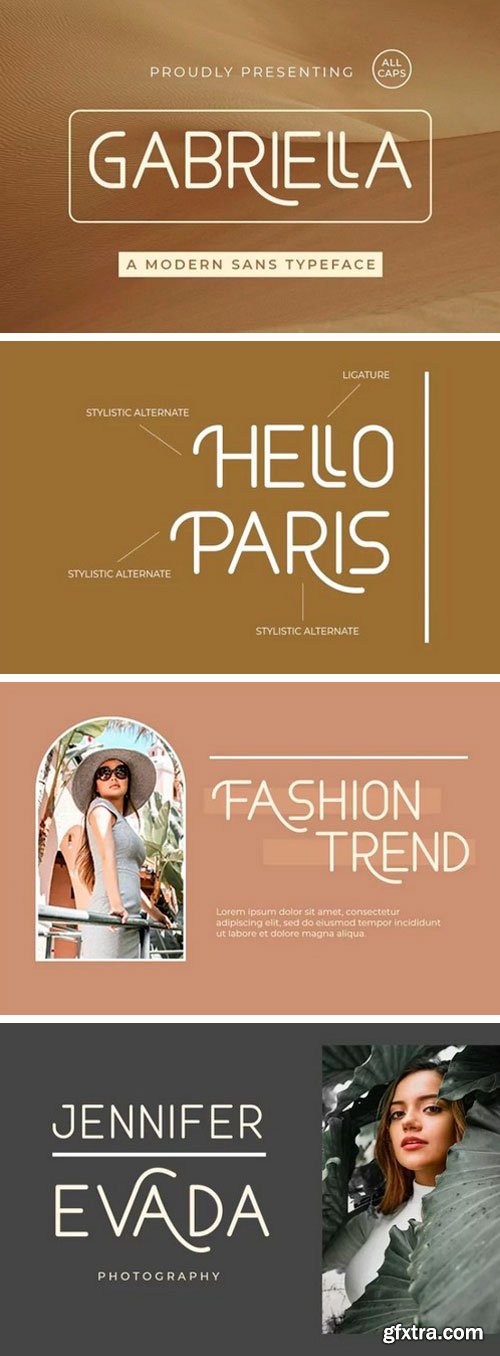
Gabriella Sans Serif Font
This is a minimalist modern elegant sans serif typeface created by Bluestype Studio with stylistic alternates. Its clean and minimalistic works wonderfully on its own for logos, headlines, posters, packaging and many more!
Black Anemone Brush Font
This font is a cool, rough brush font, quickly painted on paper, so it looks natural, organic. Very cool for logos, name tag, handwritten quotes, product packaging, merchandise, social media & greeting cards. It contains a full set of lower & uppercase letters, a large range of punctuation, numerals, and multilingual support.
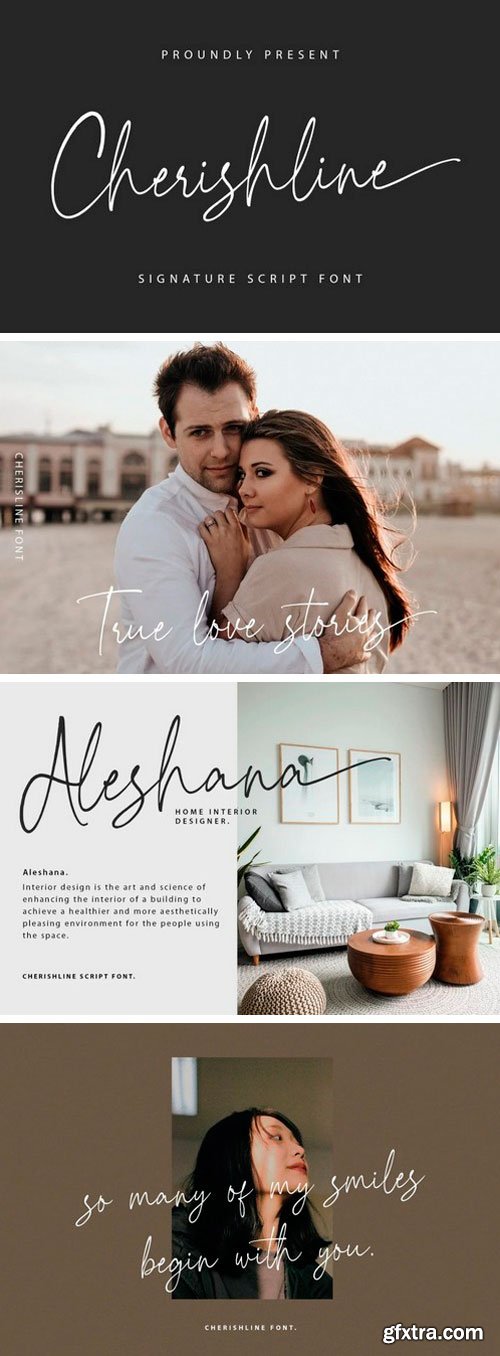
Cherishline Handwritten Font
It’s a beautiful organic handwritten font inspired by simplicity and people’s habit of writing in a simple but strong character. Fall for its ravishing style and use it to create gorgeous wedding invitations, beautiful stationary art, eye-catching social media posts, and much more! Cherishline Script is PUA encoded which means you can access all glyphs and swashes with ease!
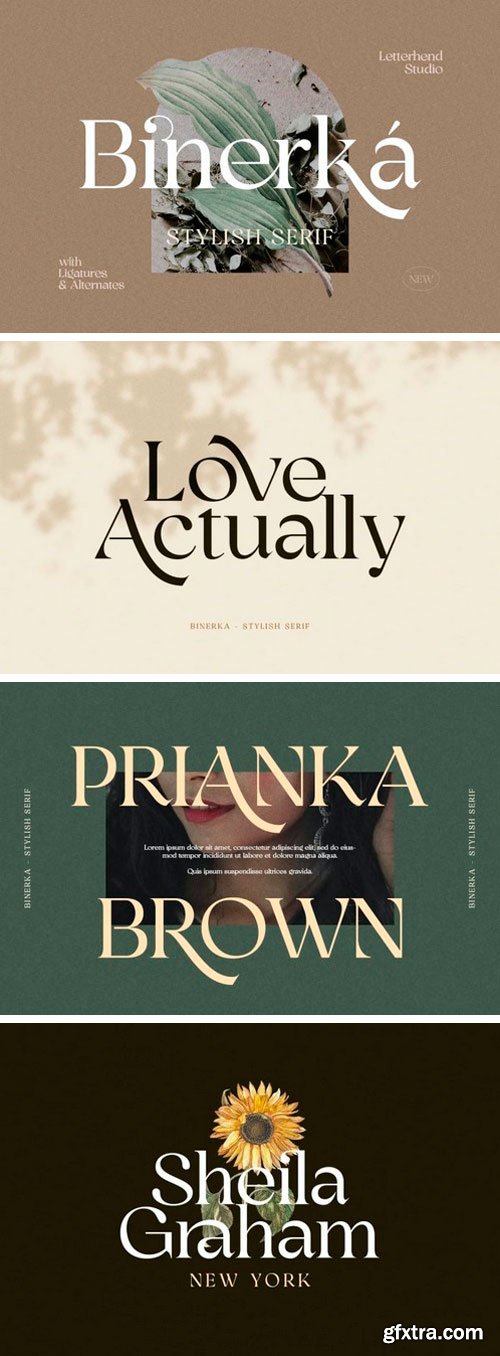
Bhinerka Serif Font
This is an ornate serif font from designer Letterhend Studio. This font is impressive and features uniquely shaped letters. This typeface has can be used for modern theme or vintage looks with ligatures & alternates. Very suitable for logo, headline, tittle, and the other various formal forms such as invitations, labels, logos, magazines, books, greeting / wedding cards, packaging, fashion, make up, stationery, novels, labels or any type of advertising purpose.
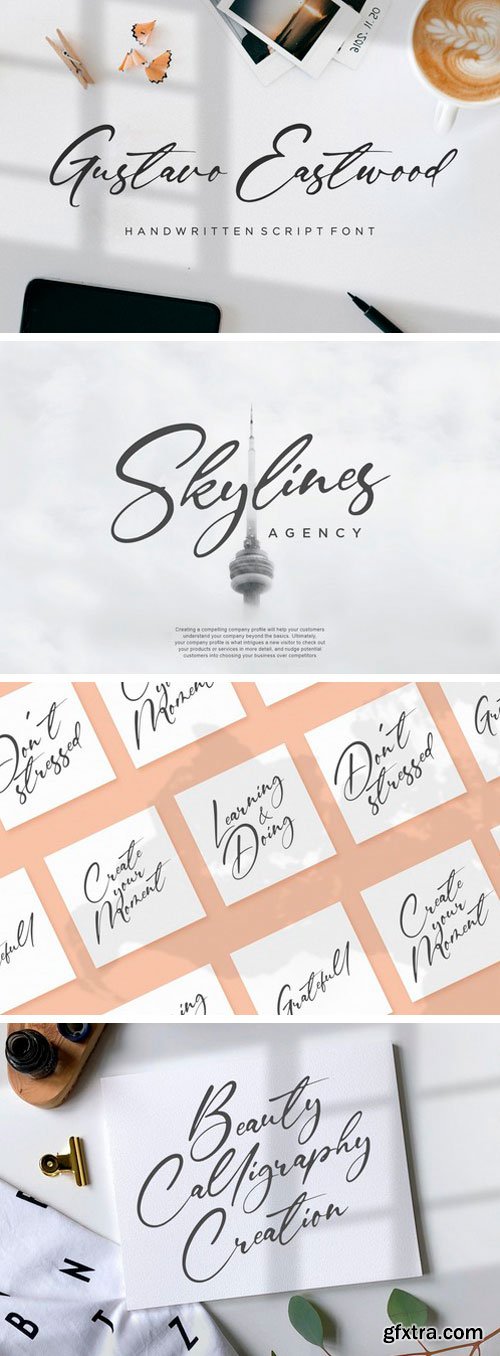
Gustavo Eastwood Script Font
Gustavo Eastwood is a Handwritten Script Font.
Gustavo Eastwood is a beautiful and refined script font. It has a classy, elegant and modern look that can be used for logos, branding, invitations, stationery, wedding designs, social media posts, and much more!
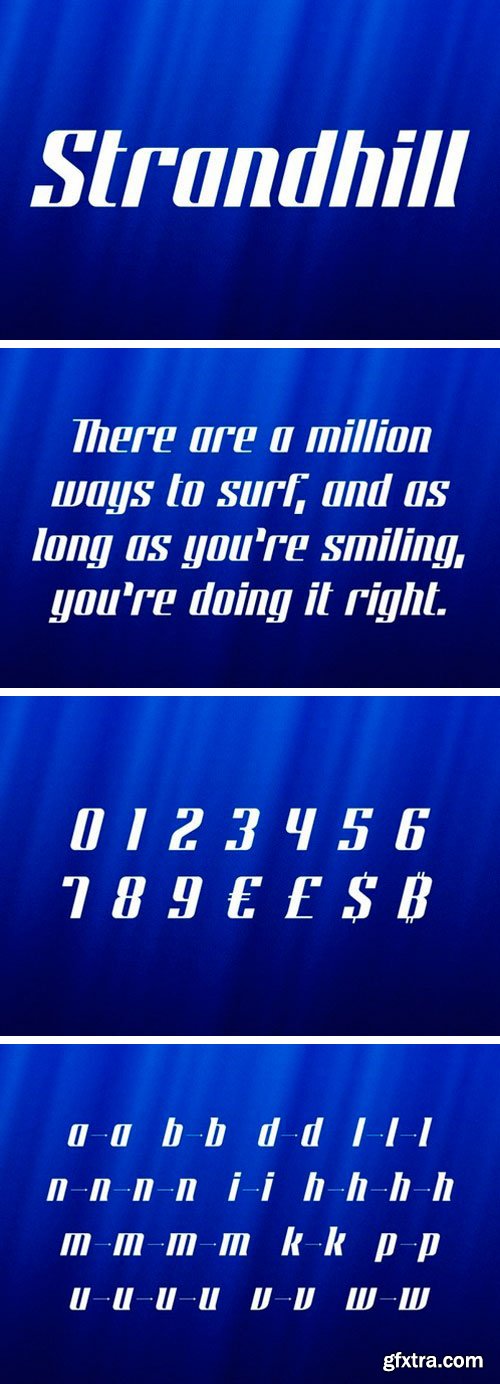
Strandhill Display Font
This is a bold sans serif display font from designer Pavels Lavrinovics. It is Modern and elegant, this typeface is made of beautiful, creative strokes. These slanted characters aim to represent the movement of surfing and other sport. It’s structure and forms are inspired by blackletter.
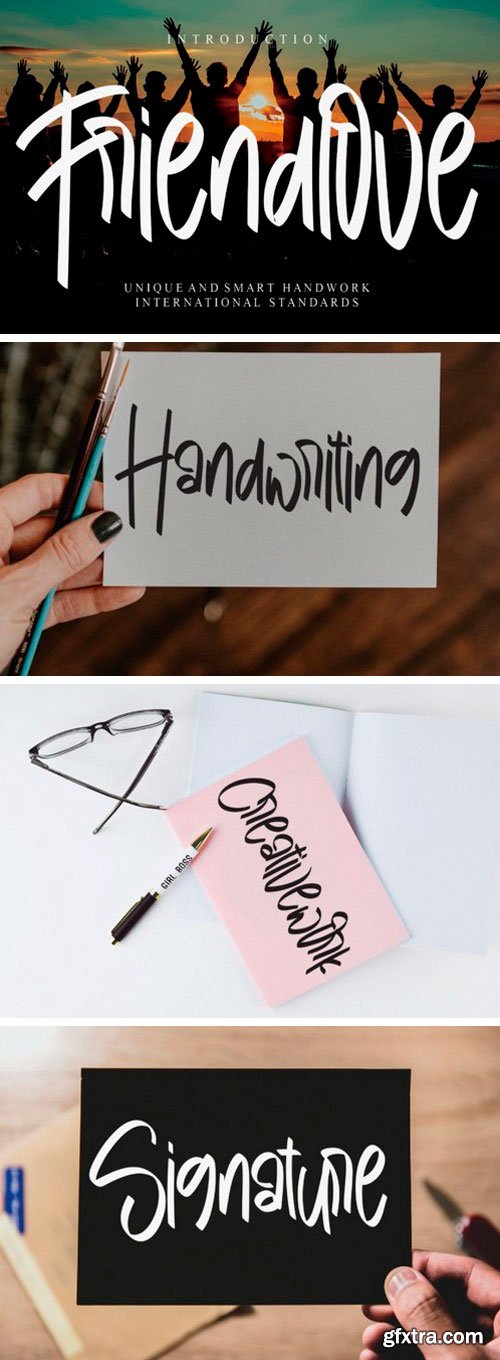
Friendlove Script Font
This is a whimsical script font with a relaxed theme, featuring a lovely style. No matter the topic, this font will be an incredible asset to your fonts’ library, as it has the potential to elevate any creation.
Disney For Handcraft Handwritten Font
This is a cute, thin lettered and whimsical handwritten font. Its natural and unique style makes it incredibly fitting to a large pool of designs
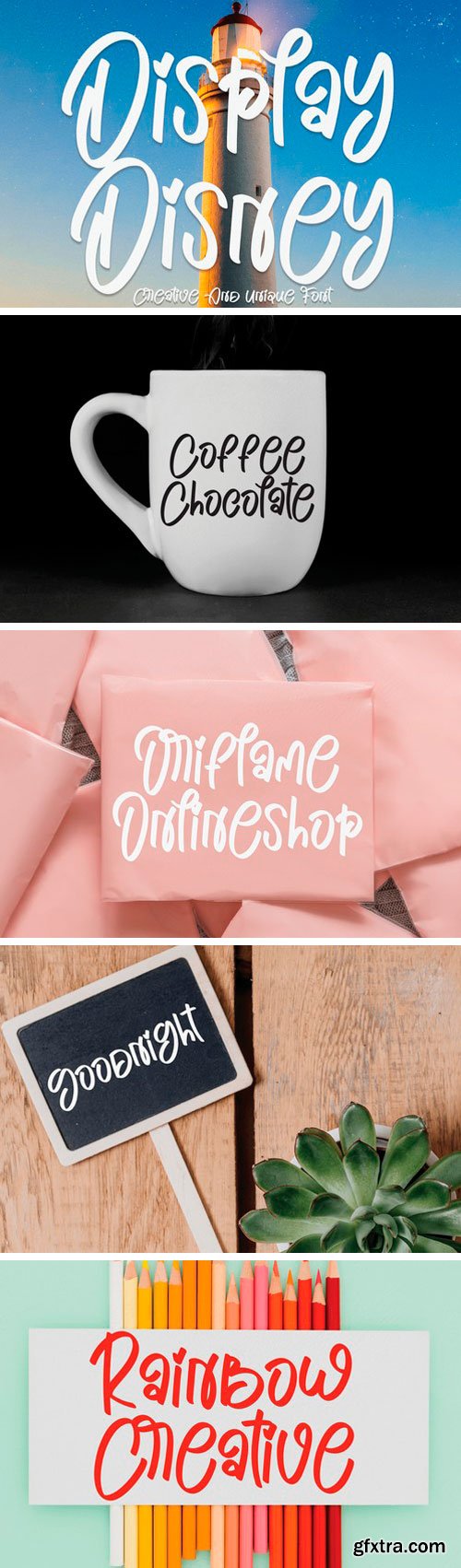
Display Disney Script Font
This is a chic and whimsical script font. Whatever the topic, this font will be a wonderful asset to your font library, as it has the potential to enhance any creation.
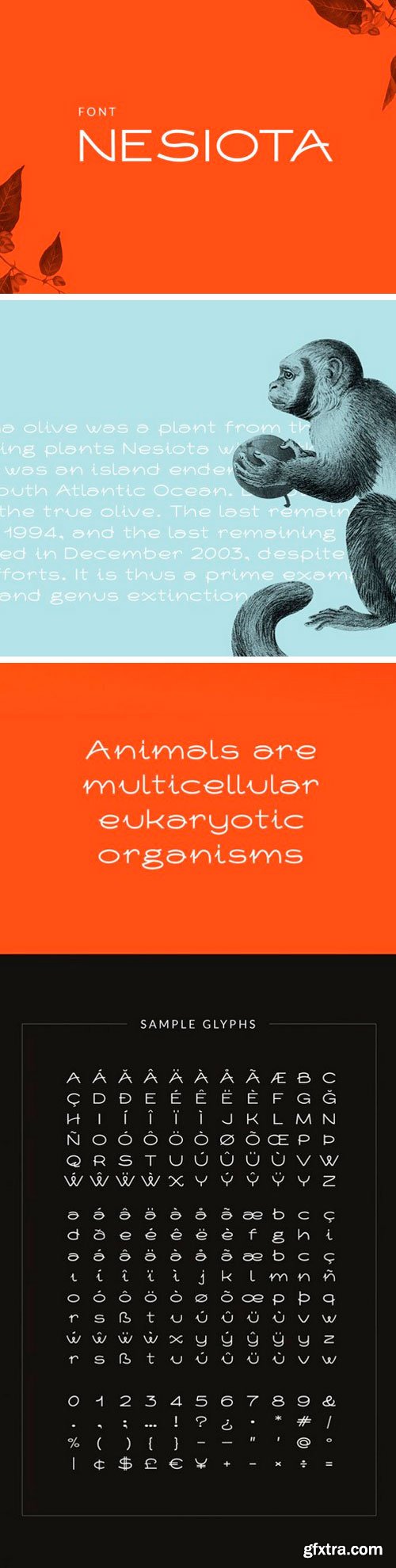
Nesiota Sans Serif Font
It’s a geometric styled sans serif font created by Mikko Nuuttila with light curvy strokes and unique features. You can create various designs with this font. Such as logos, posters, design templates, magazines, flyers and others. The strong character of the letters makes your design feel more modern and minimalist.
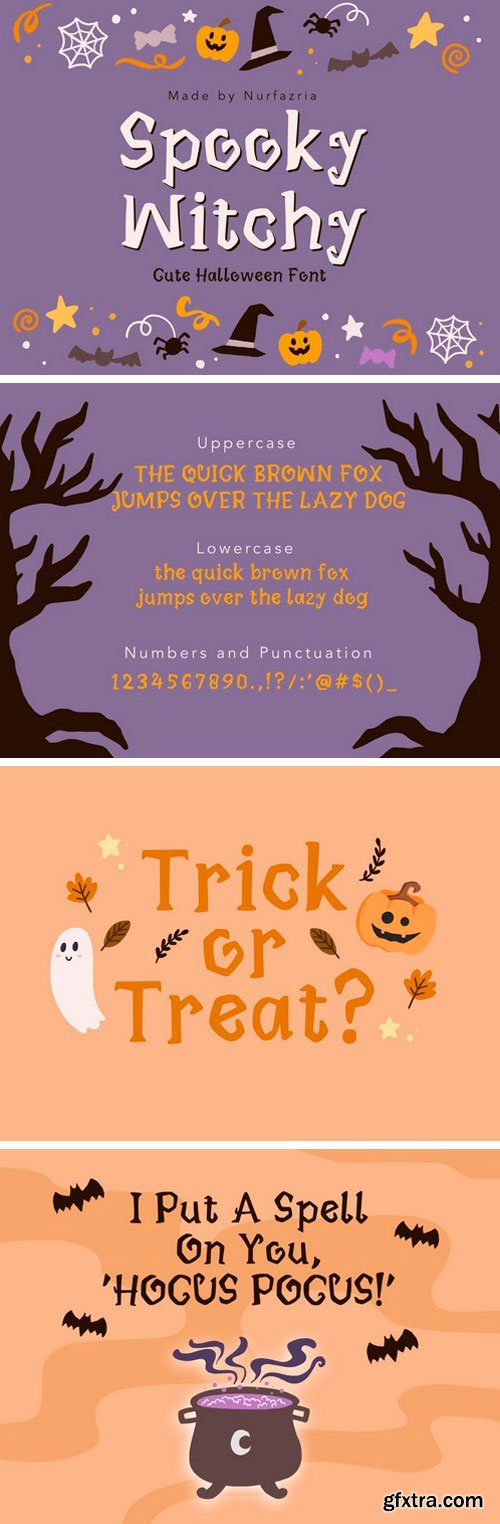
Spooky Witchy Display Font
This is a cute and incredibly unique display font. Masterfully designed to become a true favorite, this font has the potential to bring each of your creative ideas to the highest level!
Erasmusbrug25 Display Font
This is a cool futuristic font that feels bold yet simple. It’s an architecturally inspired display font representing the Erasmus bridge in Rotterdam, Netherlands. In the form of straight lines is very suitable for the design of posters, announcements, headlines, films, logos, esports, games, applications and more.
Rejova Sans Serif Font
This font is a distinctive, classic sans serif typeface that is inspired by traditional calligraphy and turned into a modern sans. Made from font designer named RC graphics. It’s an elegant, timeless, and stunning all caps sans serif font that looks beautiful in layouts, headers, web, and many other contexts! Rejova is perfect for magazine layouts, invitations or any other project you’re working on!